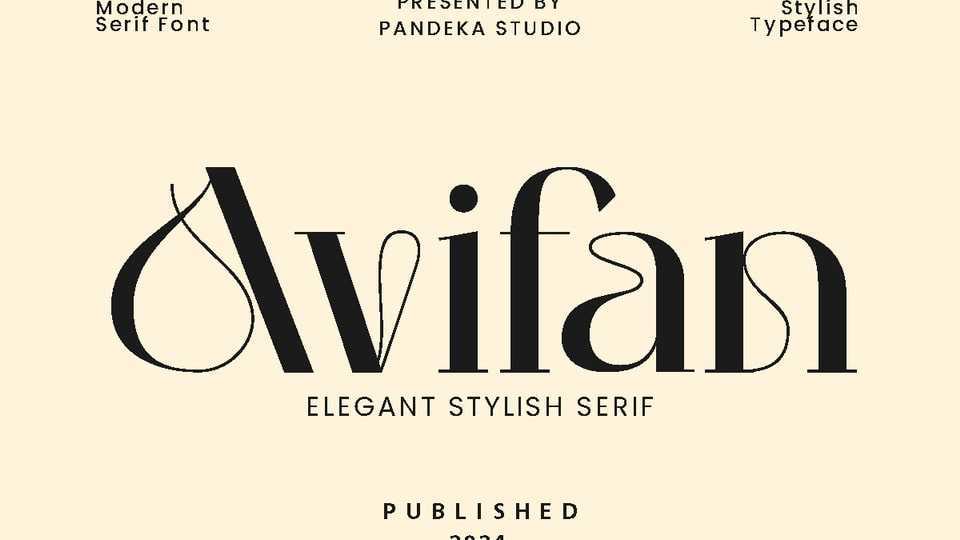
Download Avifan font, a modern, elegant and classy serif typeface, best used as a display for headings, logos, branding, magazines, product packaging and invitations.